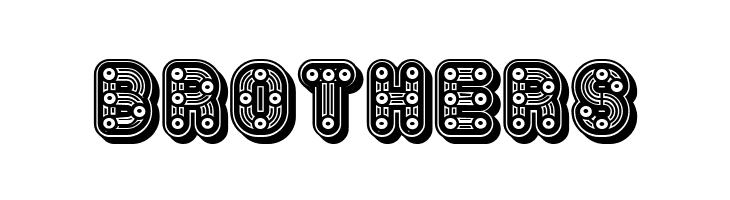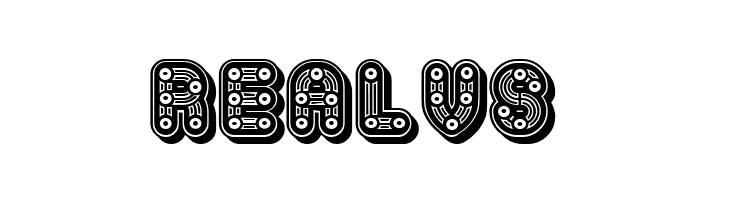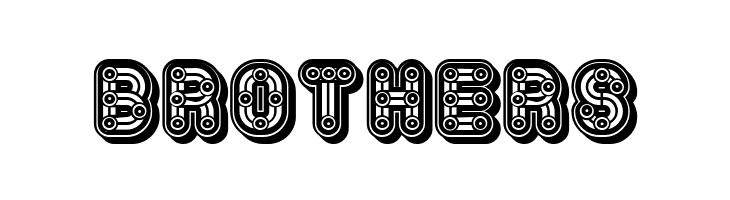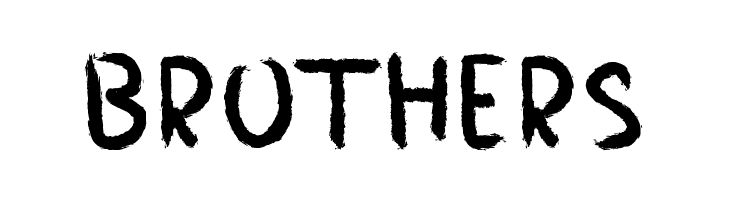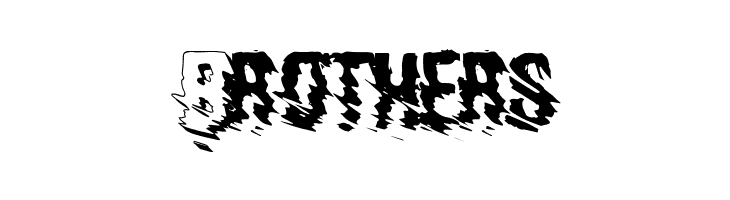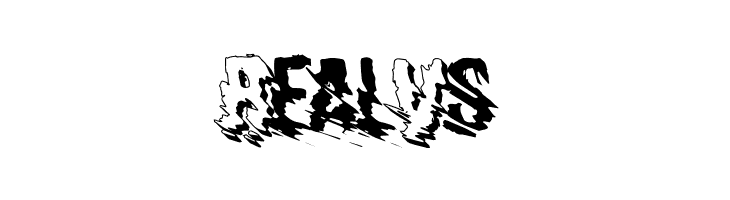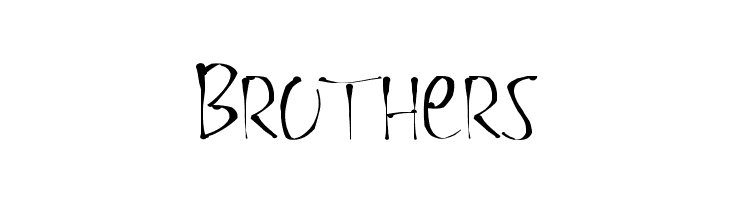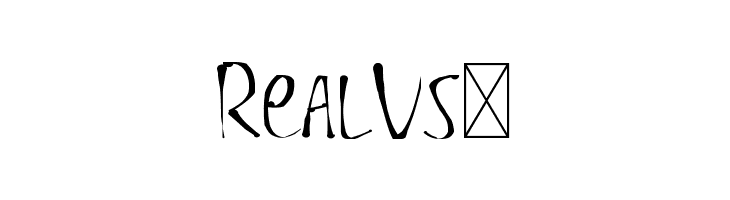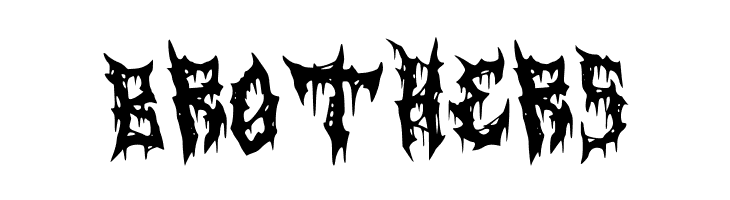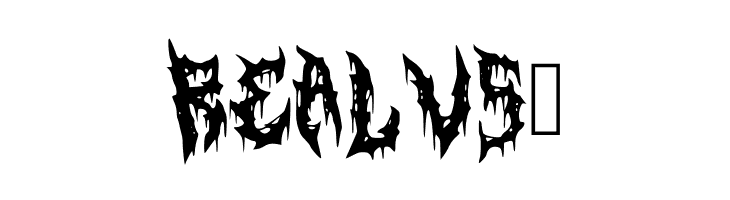
A bold, decorative font with a spooky, horror-themed aesthetic.
A jagged, eerie font ideal for horror-themed projects.
Horror-themed decorative dingbats.
A gothic, horror-themed font with intricate, thorn-like embellishments.
A bold, gothic font with sharp, jagged edges and a spooky aesthetic.
A bold, jagged font with an eerie, horror-inspired style.
A bold, dripping font ideal for horror and Halloween themes.
A bold, jagged font ideal for horror-themed designs.
A chilling, jagged font ideal for horror-themed designs.
A spooky, irregular font with sharp, dripping edges, perfect for horror themes.
A bold, dripping font ideal for horror themes and eerie designs.
A bold, whimsical font with dramatic serifs and an eerie, playful style.
A gothic, horror-themed font with sharp serifs and dramatic curves.
A chaotic, jagged font with a horror-themed, dynamic appearance.
A spooky, dripping font perfect for horror themes.
A chilling, horror-themed font with jagged, dripping characters.
A bold, angular font with sharp edges and a gothic flair.
A jagged, distressed font ideal for horror themes.
A bold, 3D font with a jagged, horror-inspired design.
A jagged, horror-themed font with sharp, irregular strokes and a distressed texture.
A jagged, horror-themed font with sharp, irregular edges.
A bold, hand-drawn font with an energetic and playful style.
A bold, dramatic font with sharp, angular edges and a theatrical flair.
A chaotic, distressed font with bold, jagged strokes and a grunge aesthetic.
A bold, jagged font with a spooky, distressed style.
A bold, 3D-effect font with a playful, Halloween-inspired design.
A bold, spooky font with jagged, irregular outlines for a Halloween theme.
A bold, jagged font with a horror-inspired, textured design.
A bold, jagged font perfect for horror-themed designs.
A bold, jagged font with a spooky, chaotic aesthetic.
A decorative horse-themed dingbat set with varied styles and motifs.
A rugged, hand-drawn font with bold, irregular strokes and an expressive style.
A bold, decorative font with intricate geometric patterns and thick outlines.
A bold, decorative font with a futuristic, circuit-inspired design.